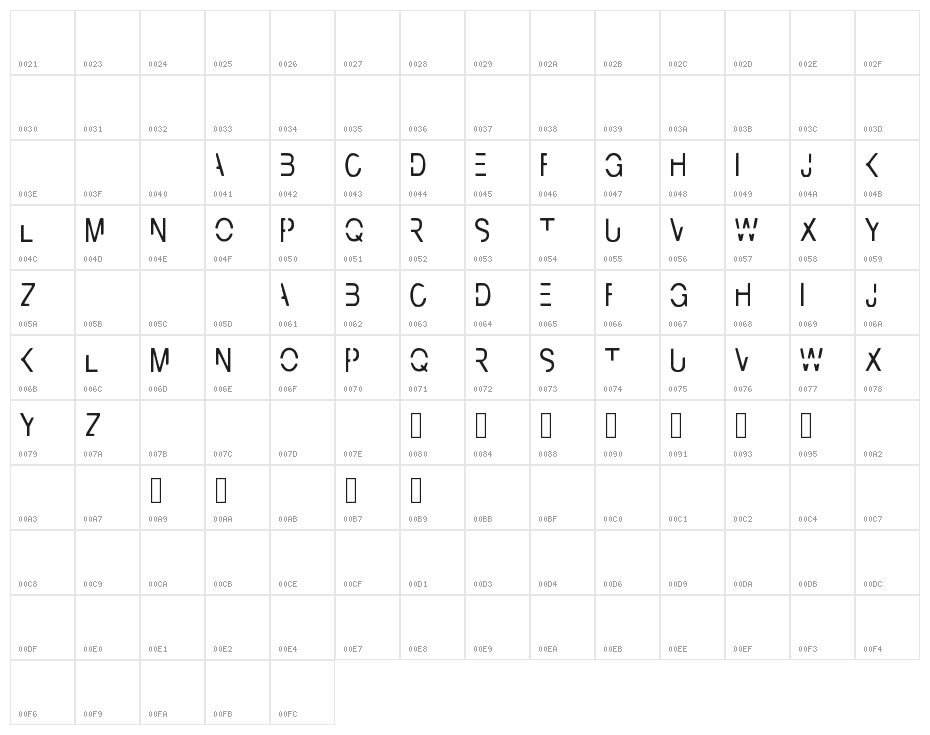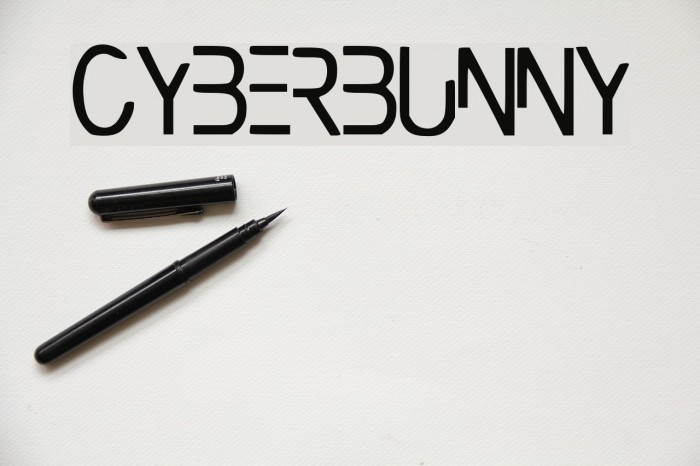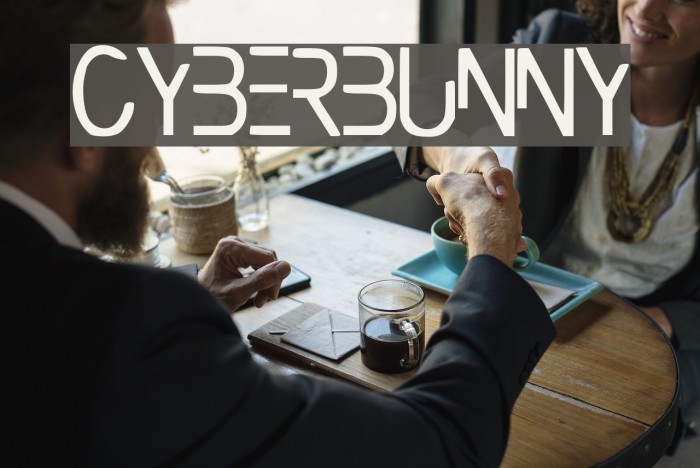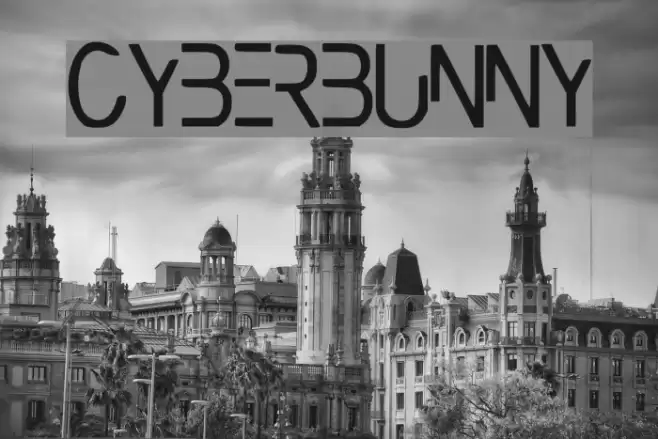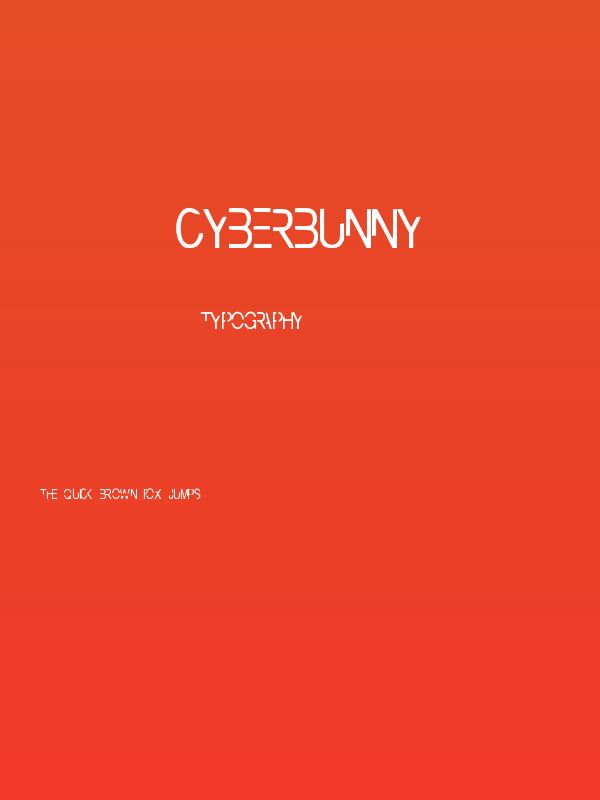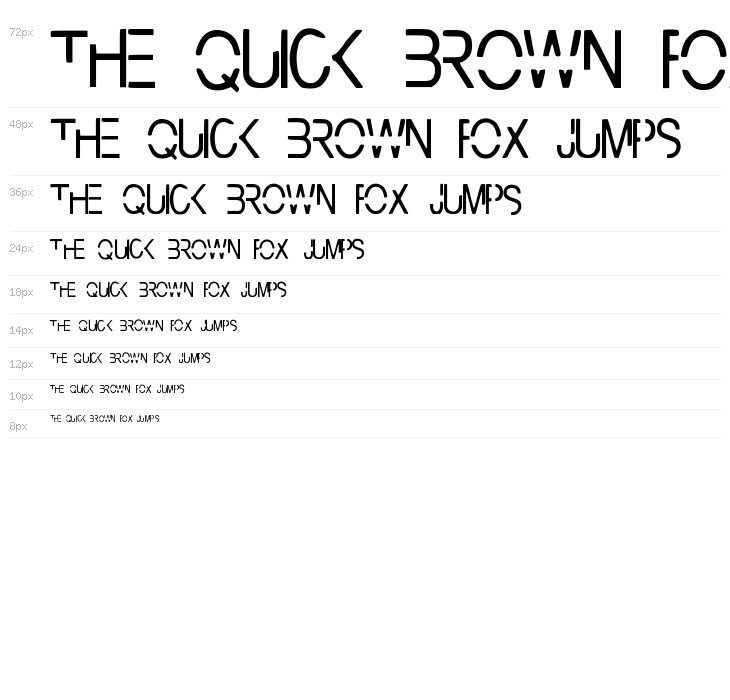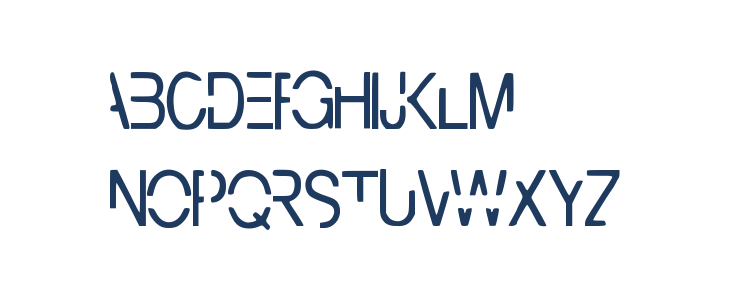
CyberBunny Font
CyberBunny Description
This font features a futuristic and geometric design, characterized by its bold and angular letterforms. The uppercase letters are distinct with sharp edges and a consistent stroke width, giving it a modern and technological feel. The absence of lowercase letters and numerals suggests a focus on impactful, statement-making text. The unique design of certain characters, such as the 'A' and 'W', adds a creative twist that enhances its visual appeal. This font is ideal for projects that require a strong, contemporary aesthetic.